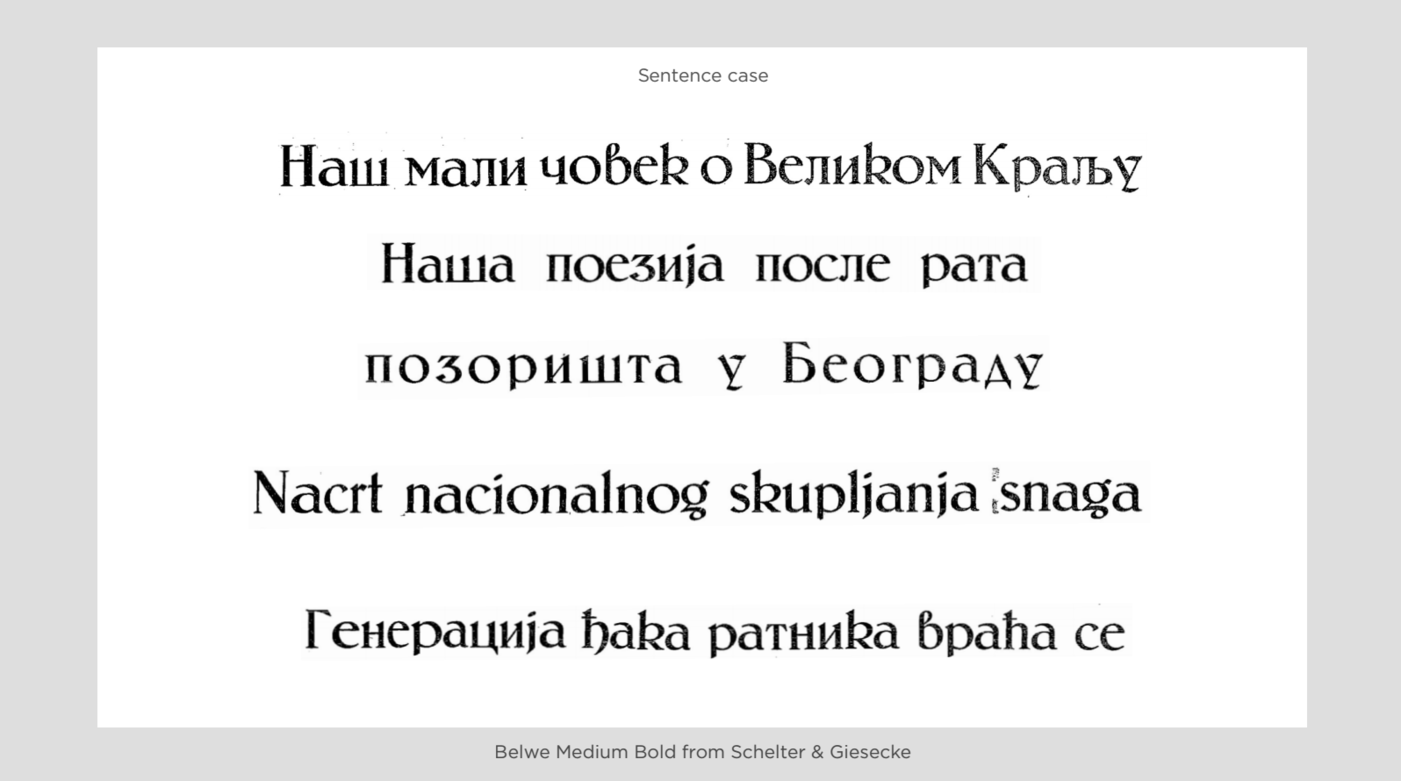
Belwe medium Cyrillic, Found in newspaper print ~1934
Here is a little "Type Specimen".
I made this while taking a few days from my regular work. I liked the font so i captured it from an old newspapers in 1934. There were around 32 editions of the paper i looked at, but i believe i could find more places it was being used.
568ca4c41323d_ScreenShot2016-01-06at6.22After i got help identifying the font i compared it to existing digitalisations. There are six of them in roman latin and one i cyrillic. I think none of them had the feel of the printed version. Cyrillic version was done by copying different contemporary styles. If anyone is interested i could make comparisons.  Anyway, i am pretty certain no one saw this typeface, at least in cyrillic, for a very long time.
If you have any thoughts let me know. I am wondering would this be interesting, or even legal, for another digitalisation? I never made a typeface but i do find stuff like this time to time. Namely: Erbar in cyrillic and a non digitalised version of Gill Sans in Cyrillic.
I am wondering would this be interesting, or even legal, for another digitalisation?
About the legality of it, it would depend on a series of different factors (the typeface, the name, the country...). As for interestingness, in recent years there has been a growing movement towards the development of non-Latin typeface designs, but, of course, the final judge is always the market. Luckily, it seems there is hope on that front too.
My advice would be to contact the foundries that already offer a digitalisation of the typeface, asking if they would be interested in adding or revamping a Cyrillic version.
Keep in mind that nowadays it would probably made more sense, market-wise, working on something like Erbar rather than Belwe.